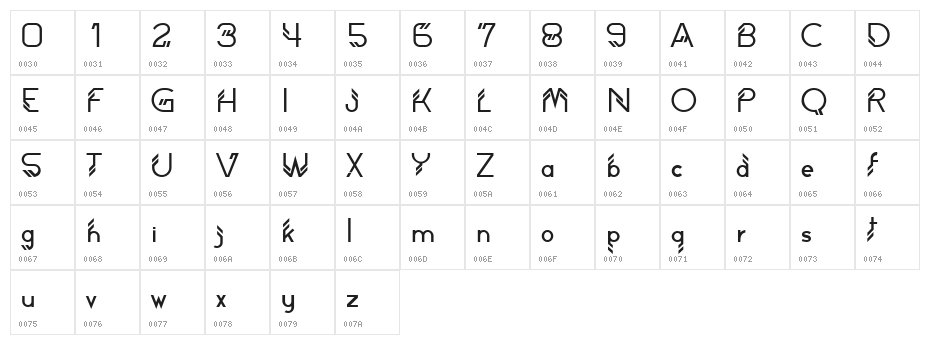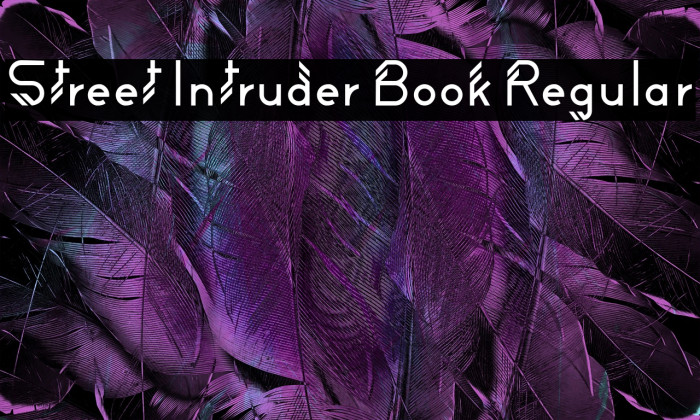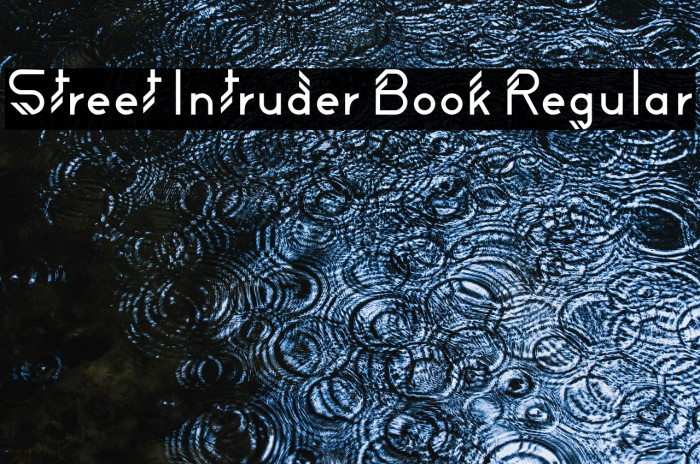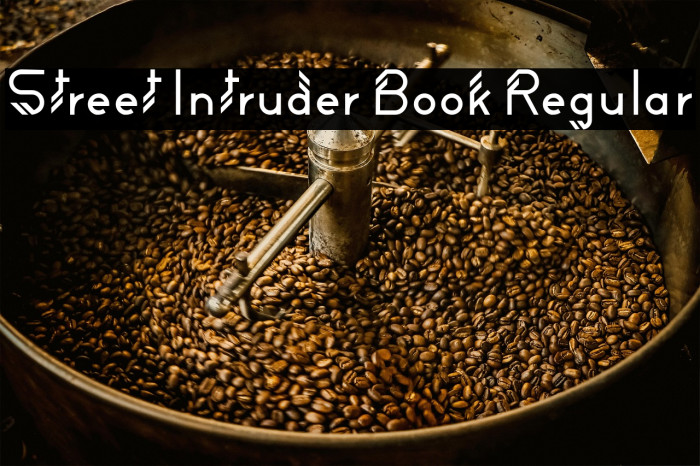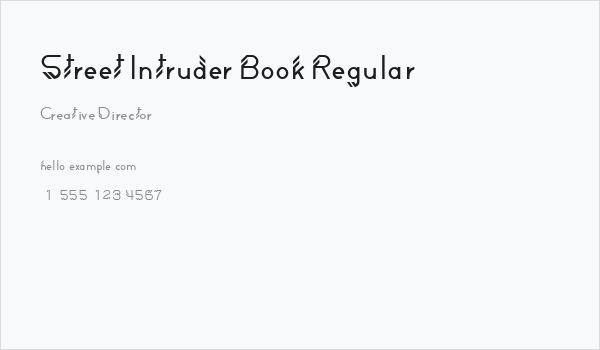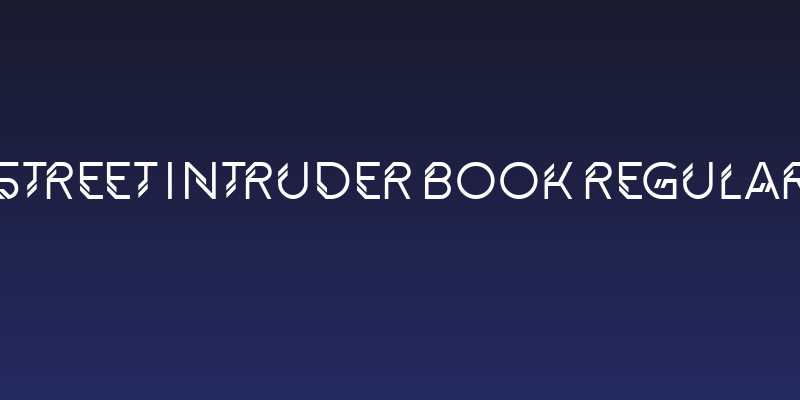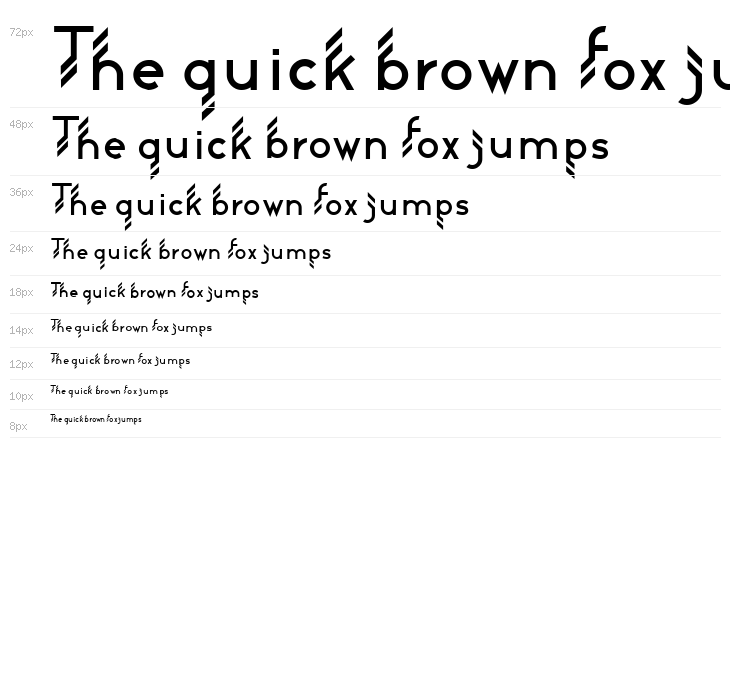
Street Intruder Book Regular Font
Street Intruder Book Regular Description
This font features a unique and modern design with a geometric and angular style. The uppercase letters are characterized by sharp, clean lines and distinctive cutouts that give them a futuristic appearance. The lowercase letters maintain a more rounded form but still incorporate the angular elements seen in the uppercase set. Numbers and special characters follow the same design principles, ensuring a cohesive look across all characters. The font's style is bold and eye-catching, making it suitable for creative and contemporary projects.
| Proposed Projects | Ideal for branding, logos, posters, and any project requiring a modern and edgy aesthetic. |